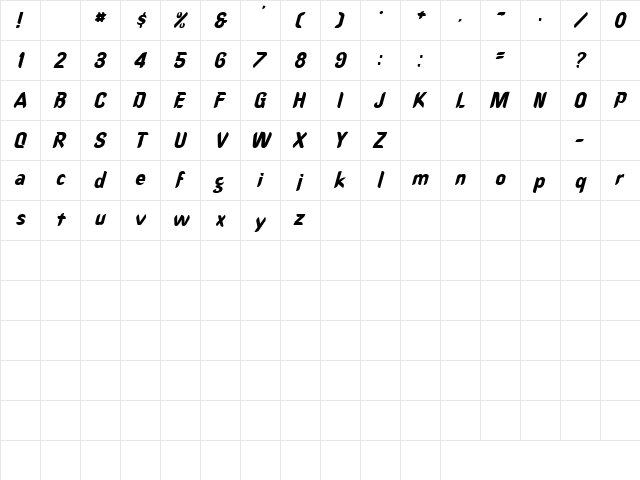
Core 10 Italic Font Preview
Core 10 Italic
Core 10 Italic Font Details
Design Context for Core 10 Typeface
Core 10 takes a measured approach to typography — its balanced proportions and neutral character make it a reliable workhorse for both digital and print work. Its italic angle brings a sense of urgency and motion to the letterforms.
Pro Tip: Try Core 10 for annotation and caption copy alongside an upright companion — the contrast in angle creates a dynamic but ordered typographic system.